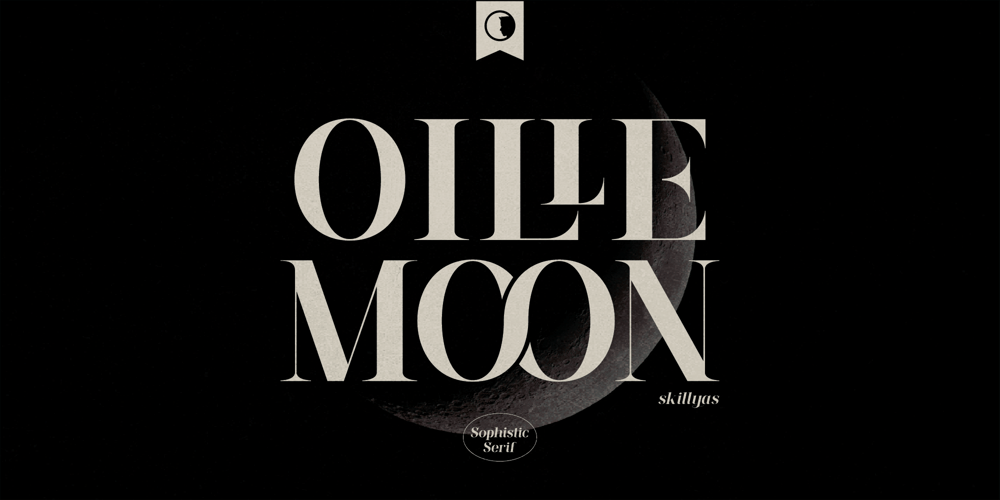
Oille Moon
Oille Moon font
Oille Moon Font Family was designed by ahmad faizin and published by skillyas studio. Oille Moon contains 2 styles and family package options. Oille Moon is a sophisticated and elegant typeface that blends classic serifs with modern refinement. With its timeless beauty and versatile design.Oille Moon is perfect for adding a touch of distinction to your typography projects, from editorial design to branding and more. Its carefully crafted letterforms, tapered serifs, and balanced spacing make it a refined choice for those seeking a touch of elegance in their designs.Elevate your typography with Oille Moon and let its timeless appeal shine.